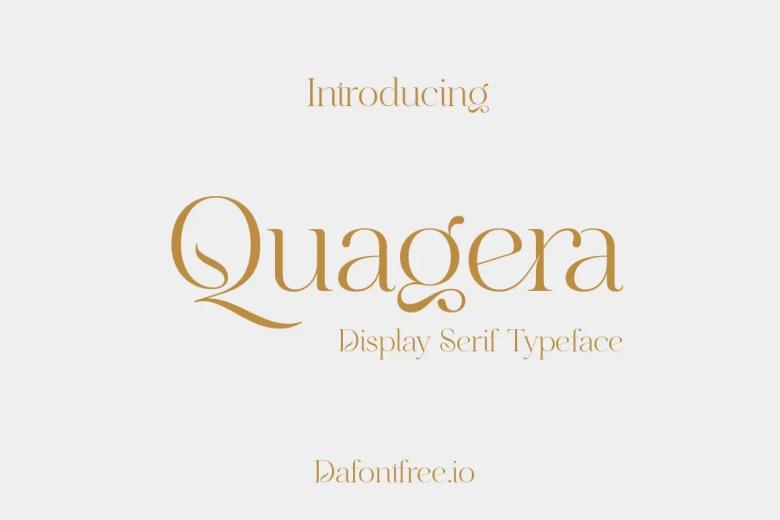
Quagera Font
Quagera is a modern-old Serif Font, is a serif typeface based on the impeccably designed quara style by Unio creative solutions. with a new mix blend of modern and old style, Quagera offers a unique ligature, discretionary ligatures, and alternates.
Quagera is perfect for your next design, such as fashion, logos, invitations, greeting/wedding cards, labels, magazines, books, packaging, makeup, stationery, novels, labels or all kinds of advertising purpose.
Quagera Serif Font